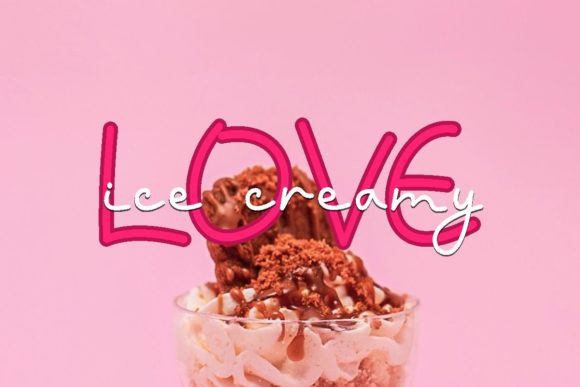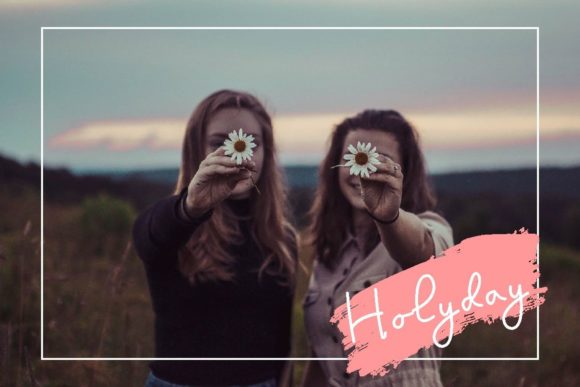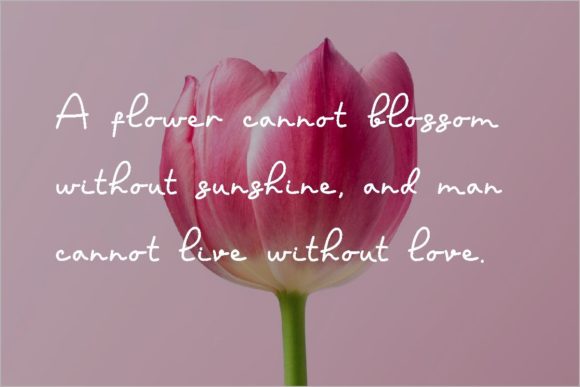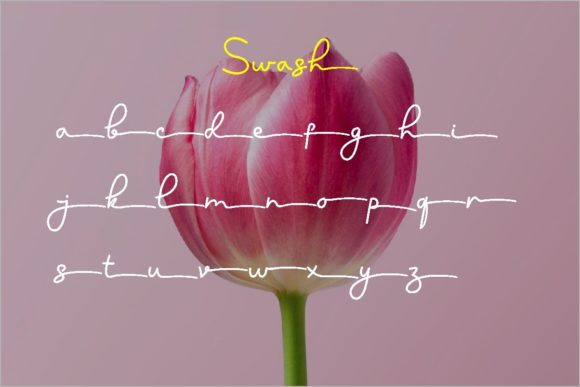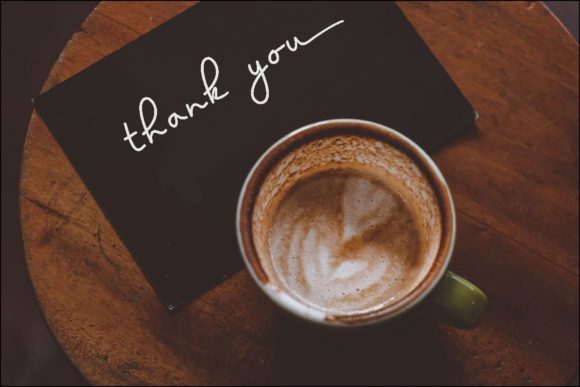
Discover the Beauty of Flowerhy Font
Have you ever found yourself staring at a blank page, searching for the perfect font to bring your design to life? The blank page stares back, taunting you with its emptiness. Suddenly, a spark of creativity ignites, and you envision a delicate, elegant script that transports your design to a world of sophistication. This is where the Flowerhy Font comes in – a lovely and delicate script font that exudes class and refinement.
Designed with the goal of adding a touch of beauty and freshness to designs, Flowerhy Font is the perfect solution for those seeking a unique and eye-catching look. Whether you’re a graphic designer, digital artist, or simply someone who appreciates the art of typography, this font is sure to captivate and inspire. With its elegant script style, Flowerhy Font is a valuable addition to any designer’s toolkit, offering endless possibilities for creative expression.
Key Features of Flowerhy Font
- Font Family: Flowerhy Font is a unique, handwritten font with a floral and whimsical touch.
- Unique Characteristics: Features intricate floral patterns, swashes, and ligatures, adding a touch of elegance and sophistication to any design.
Flowerhy Font Review
First off, I think Flowerhy is a beautiful, delicate font that’s perfect for creating a whimsical or feminine touch in your designs ✨. It’s great for branding, logos, and even digital products. The font is incredibly versatile and works well in a variety of contexts.
- Delicate, cursive style that’s perfect for adding a touch of elegance
- Works well in both print and digital formats
- Easy to read, even at smaller font sizes
However, there are a few limitations to consider ⚠️. The font is a bit limited in its uppercase letterforms, which can make it difficult to use for headings or titles that require a more prominent font size.
- Uppercase letters can appear a bit clumsy or unbalanced
- May not be the best choice for bold or dramatic headings
- Limited in its ability to convey a sense of strength or authority
Overall, I think Flowerhy is a great choice for designers who want to add a touch of whimsy or elegance to their designs. While it may not be suitable for every project, it’s a great addition to any designer’s toolkit.
Flowerhy Font is ideal for creating whimsical and playful designs. Some common use cases include:
– Children’s book illustrations and typography
– Social media graphics and advertisements
– DIY craft projects and party decorations